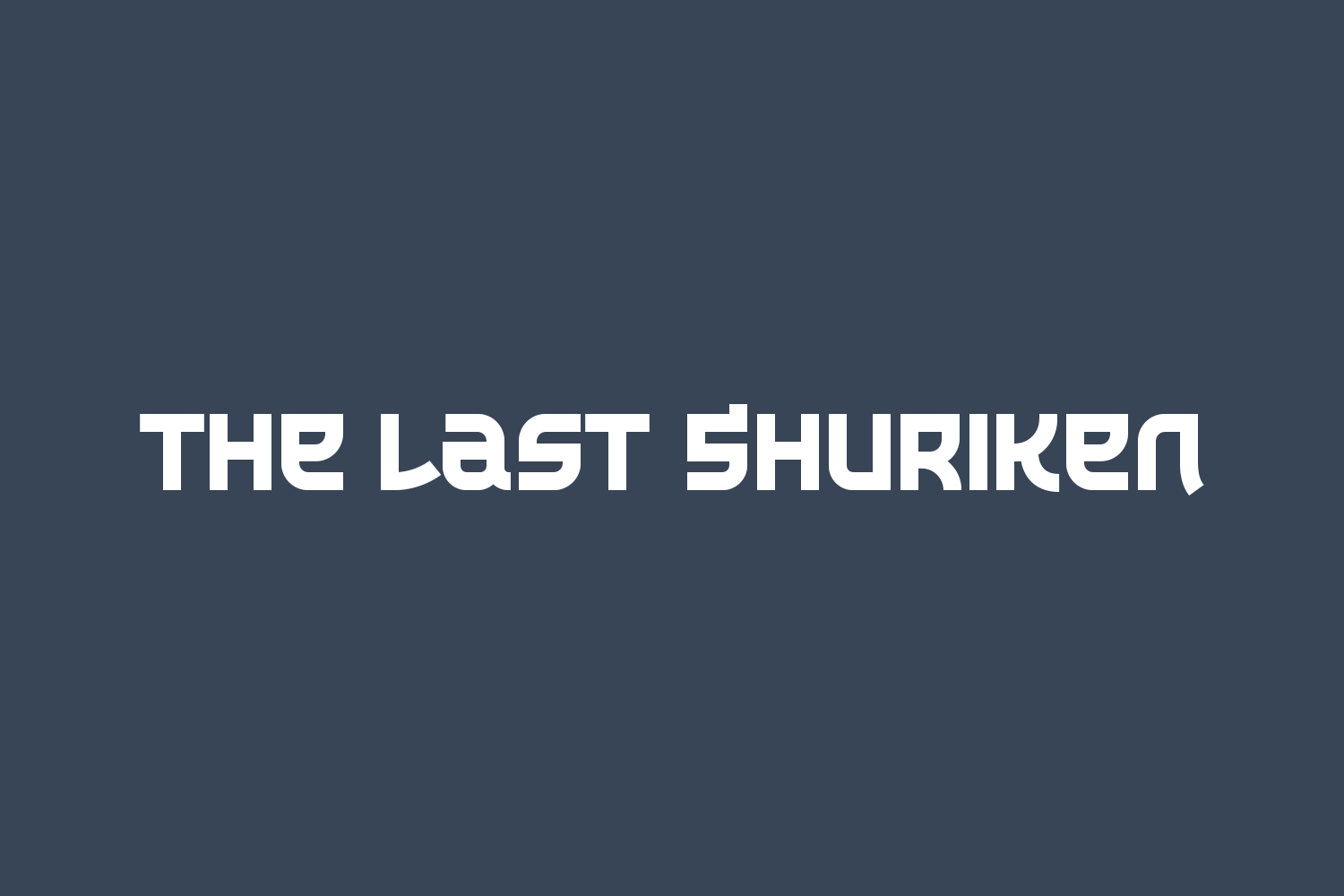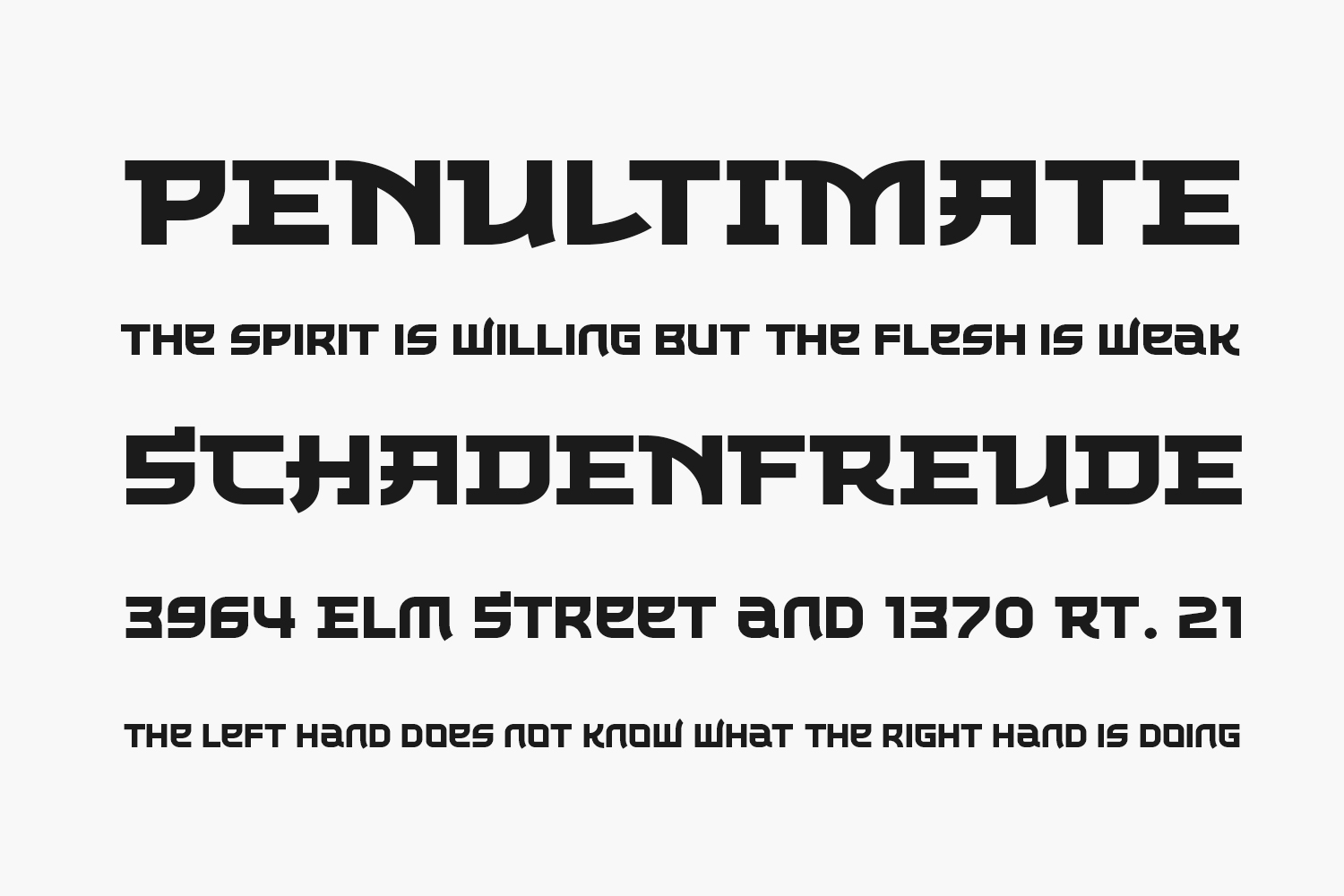
The Last Shuriken Free Font is a Japanese-style display font inspired by modern Japanese food branding and anime titles. Designed in a bold stroke, this font is an all-caps font that has the same cap height and different shapes. The Last Shuriken is perfect for display, especially for Japanese food, titles, logos, posters, short quotes, movies, games, apparel. Complete with stylistic alternates and multilingual support. Download the font for free if you need it for personal use or purchase the full version for commercial use.
Designed by Arterfak Project